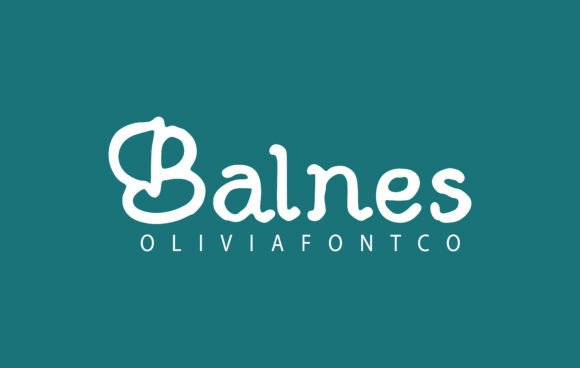
Introducing Balnes Font: The Ultimate Handwritten Font for Creative Projects
Are you looking for a font that can add a touch of romance and elegance to your creative projects? Look no further than Balnes Font, an authentic handwritten font that is sure to become a true favorite. With its unique blend of sophistication and playfulness, Balnes Font is the perfect choice for a wide range of design applications, from magazine headlines and social media graphics to branding, wedding invitations, and more.
The Story Behind Balnes Font
Balnes Font is a carefully crafted handwritten font that is designed to evoke a sense of romance and whimsy. Its creator, a skilled typographer, drew inspiration from traditional handwriting styles to create a font that is both beautiful and legible. The result is a font that is perfect for adding a personal touch to any design project.
Key Features of Balnes Font
So what makes Balnes Font so special? Here are just a few of its key features:
- Authentic Handwritten Style: Balnes Font is a genuine handwritten font, carefully crafted to capture the nuances and imperfections of traditional handwriting.
- Romantic Touch: With its flowing curves and elegant lines, Balnes Font adds a touch of romance and sophistication to any design.
- Legibility: Despite its handwritten style, Balnes Font is remarkably legible, making it perfect for use as both title and body text.
- Versatility: Balnes Font is incredibly versatile, and can be used for a wide range of design applications, from magazine headlines and social media graphics to branding, wedding invitations, and more.
Uses for Balnes Font
So what can you use Balnes Font for? The possibilities are endless! Here are just a few ideas to get you started:
Magazine Headlines
Balnes Font is perfect for use in magazine headlines, adding a touch of elegance and sophistication to any article or feature.
Social Media Graphics
Use Balnes Font to create eye-catching social media graphics that are sure to grab attention.
Branding
Balnes Font is a great choice for branding, adding a personal touch to any logo or marketing materials.
Wedding Invitations
Make your wedding invitations truly special with Balnes Font, adding a romantic touch to your big day.
Cards and Stationery
Use Balnes Font to create beautiful cards and stationery, perfect for any occasion.
Why Choose Balnes Font?
So why should you choose Balnes Font for your next design project? Here are just a few reasons:
- Unique and Authentic: Balnes Font is a truly unique and authentic handwritten font, guaranteed to make your designs stand out.
- Elegant and Sophisticated: With its romantic touch and elegant lines, Balnes Font adds a level of sophistication to any design.
- Legible and Versatile: Balnes Font is both legible and versatile, making it perfect for use in a wide range of design applications.
Tips for Using Balnes Font
Here are a few tips for getting the most out of Balnes Font:
- Use it Sparingly: While Balnes Font is beautiful, it can be overwhelming if used too much. Use it sparingly to add a touch of elegance to your designs.
- Experiment with Colors: Balnes Font looks great in a variety of colors, so don’t be afraid to experiment and find the perfect shade for your design.
- Pair it with Other Fonts: Balnes Font pairs well with a variety of other fonts, so try combining it with other fonts to create a unique and interesting design.